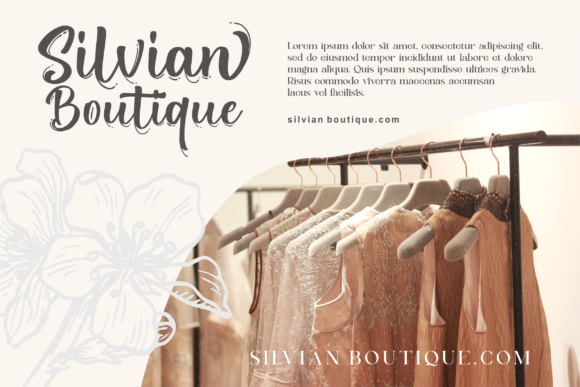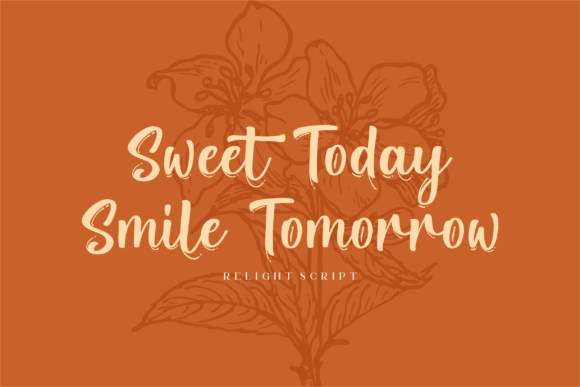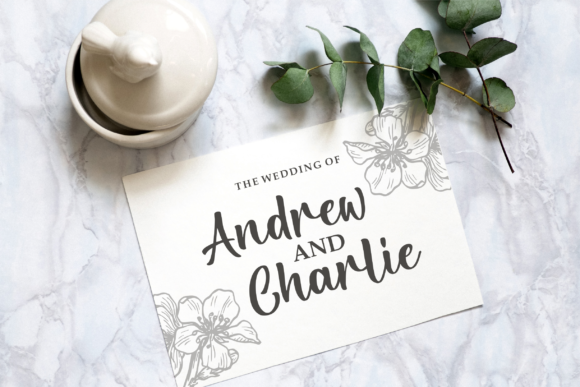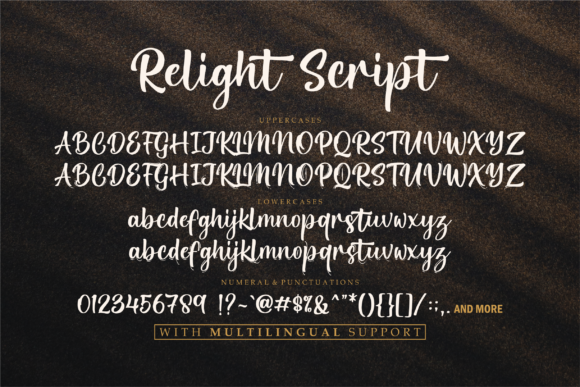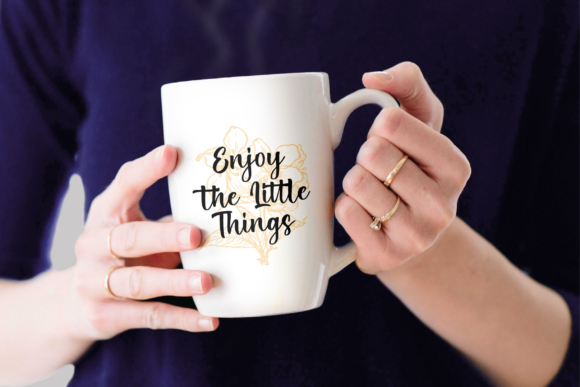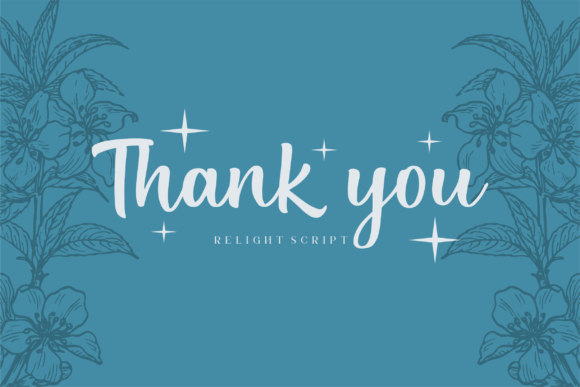
Introduction to Relight Script Font
Relight Script is a whimsical script font with a relaxed theme, featuring a lovely style.
Key Features of Relight Script Font